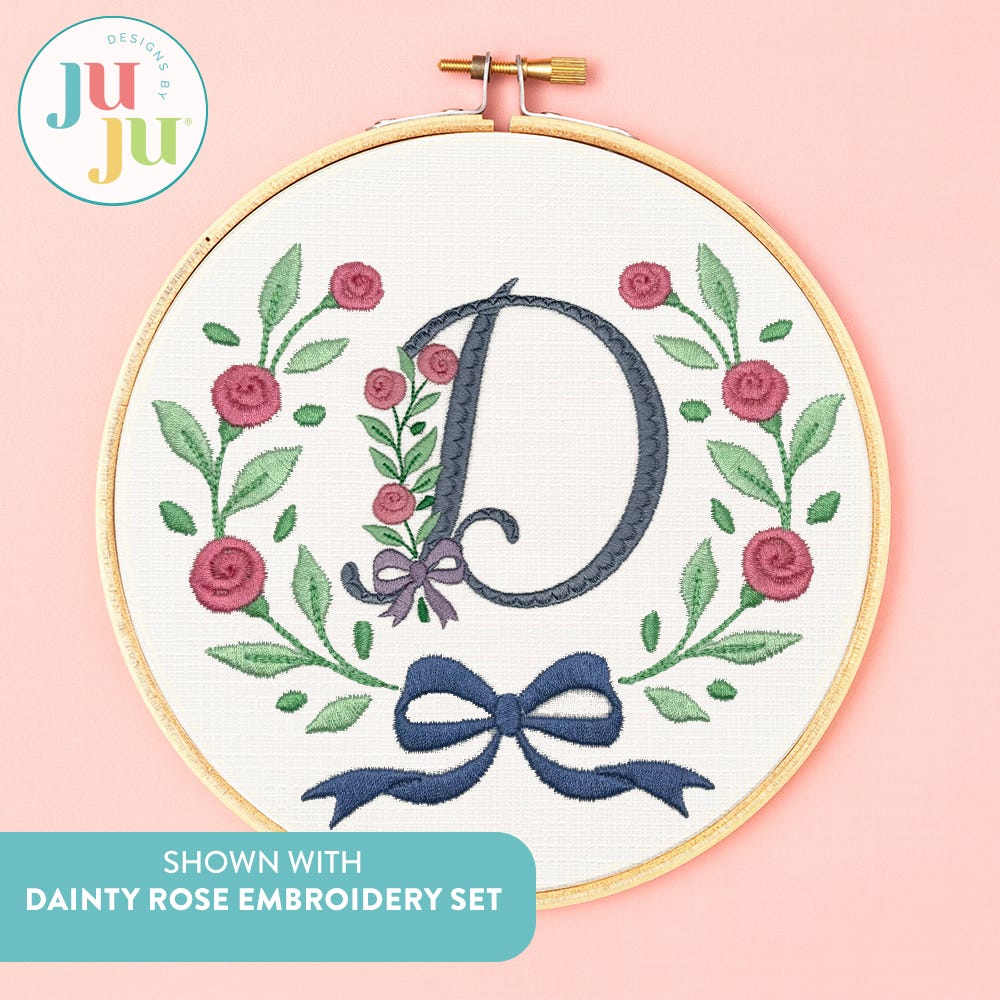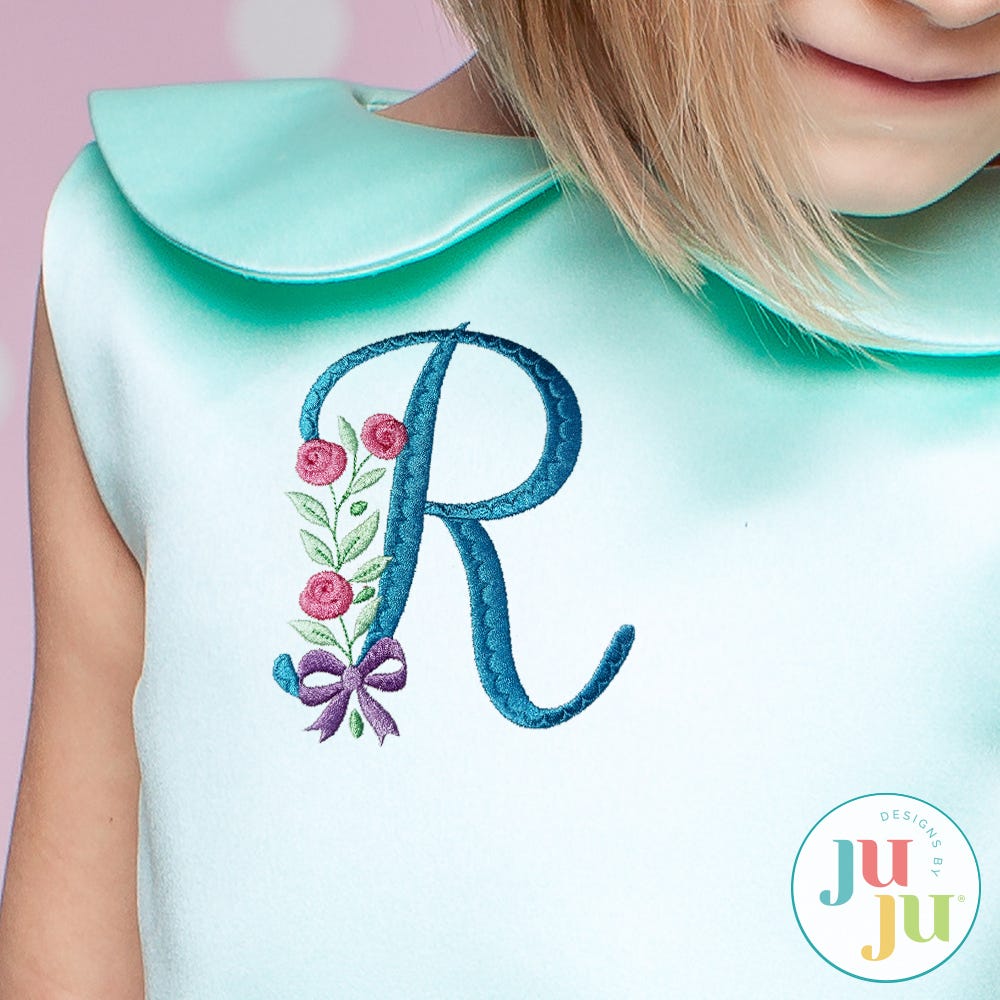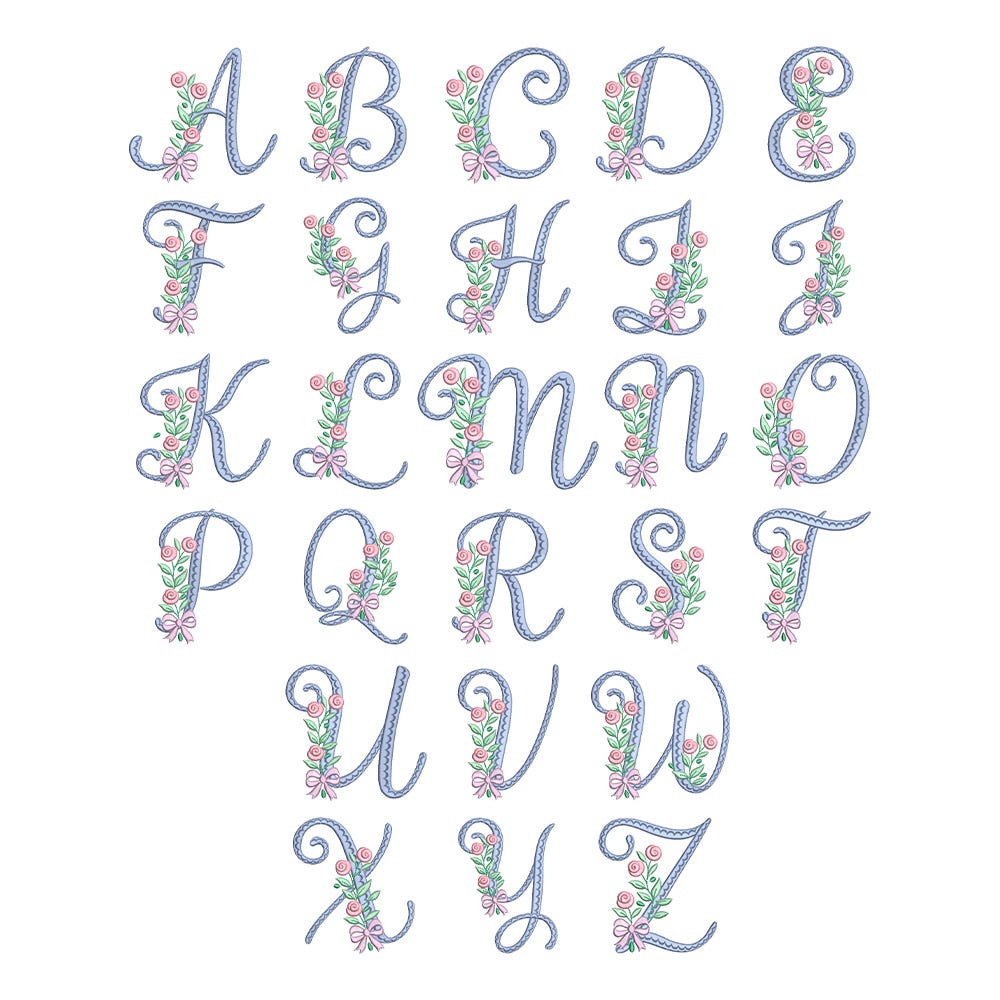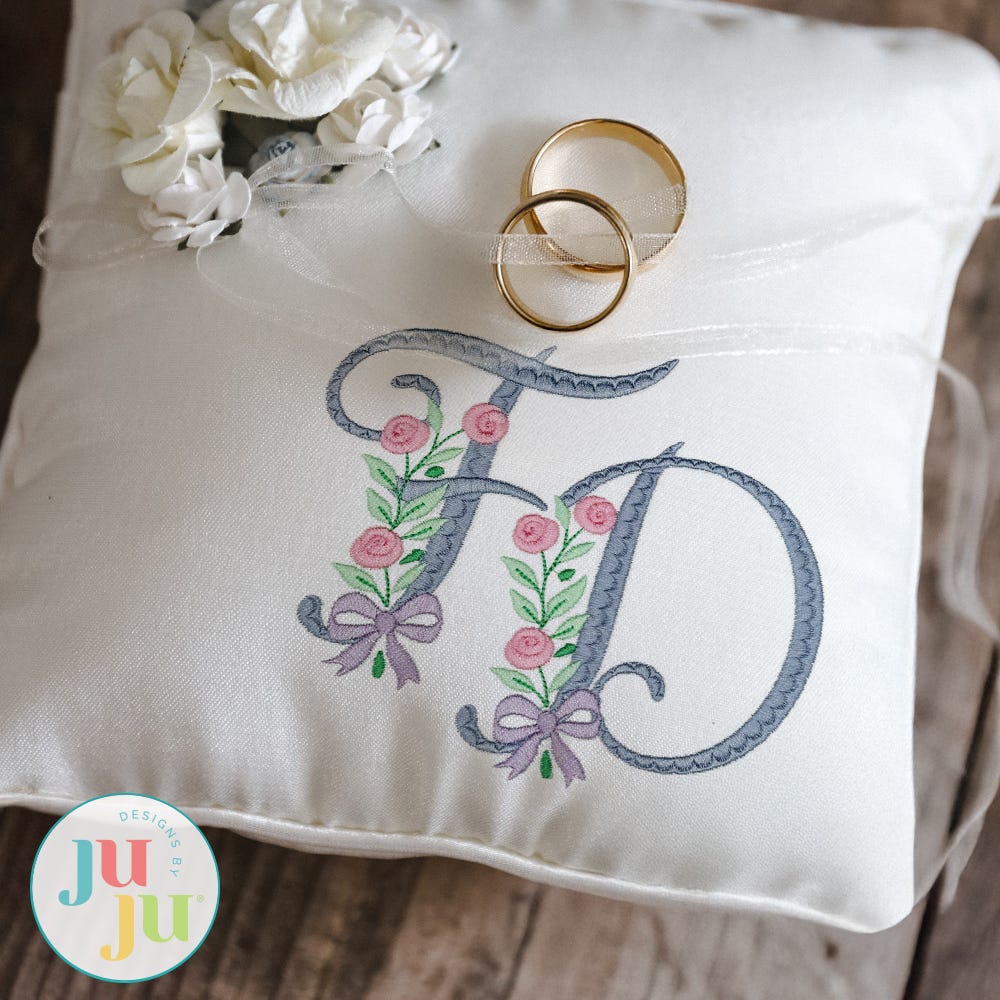
Dainty Rose Satin Stitch Monogram Embroidery Font
Add some delicate, classic, floral charm to your stitching projects with our embroidery-only Dainty Rose Monogram!
The delicate script letters feature lovely scallop details and are accented with beautiful dainty roses and bows.